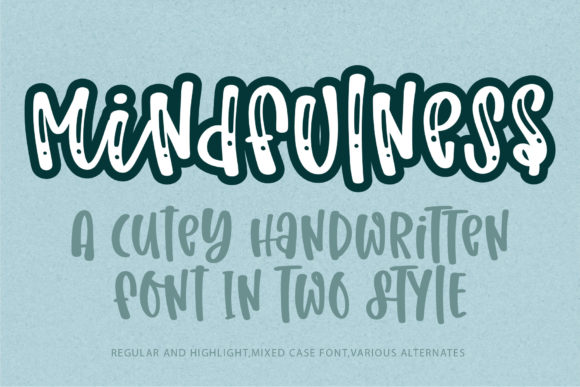
Introducing Mindfulness Font by BitongType, the perfect choice for adding a touch of cuteness, quirkiness, and relaxation to your designs! This script font is not just any ordinary font; it's a font that speaks to your heart and brings a smile to your face.
If you're looking to create captivating children-themed designs, Mindfulness Font is your ultimate companion. Its handwritten style adds a playful and youthful vibe, capturing the imagination of both kids and adults alike. Combining this font with bright colors will truly make your designs pop and come to life!
What sets Mindfulness Font apart from the rest is its versatility and ease of use. It is PUA encoded, allowing you to effortlessly access all of its unique glyphs and swashes. Say goodbye to the limitations of standard fonts and embrace the endless creative possibilities that Mindfulness Font offers.
Whether you're designing thank you bags, birthday invitations, nursery wall art, or any other project aimed at capturing the essence of childhood, Mindfulness Font delivers. It evokes a sense of warmth, joy, and innocence that will resonate with your audience and leave a lasting impression.
Imagine the smiles on children's faces as they see their names beautifully crafted with Mindfulness Font. Picture the excitement of parents receiving personalized thank you cards with a touch of heartfelt charm. With this font, you have the power to create magical moments and evoke emotions like no other.
Remember, Mindfulness Font is not just a font; it's an experience. It's a gateway to a world filled with wonder, joy, and the purest form of expression. Get ready to embark on a design adventure like no other with Mindfulness Font by BitongType.